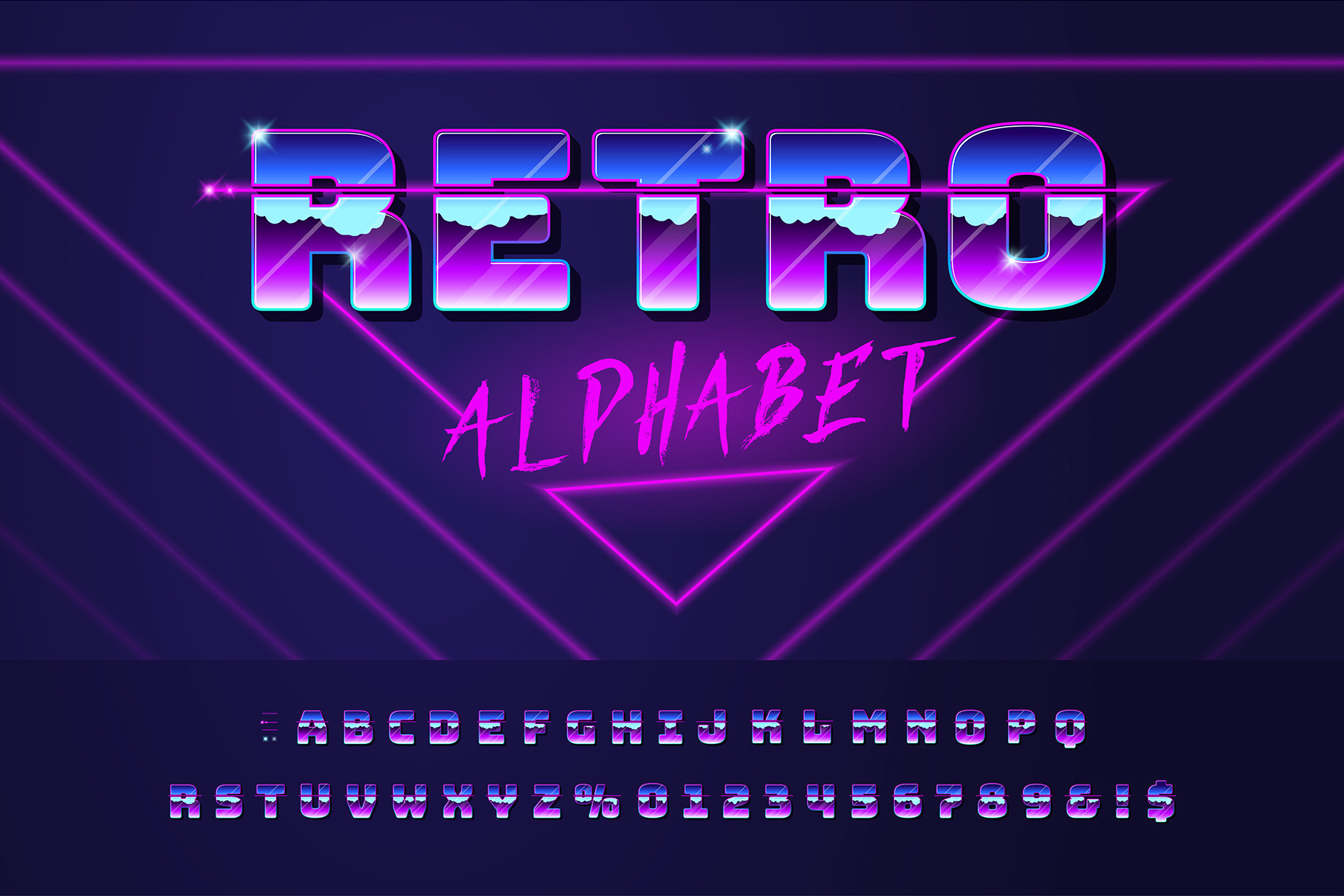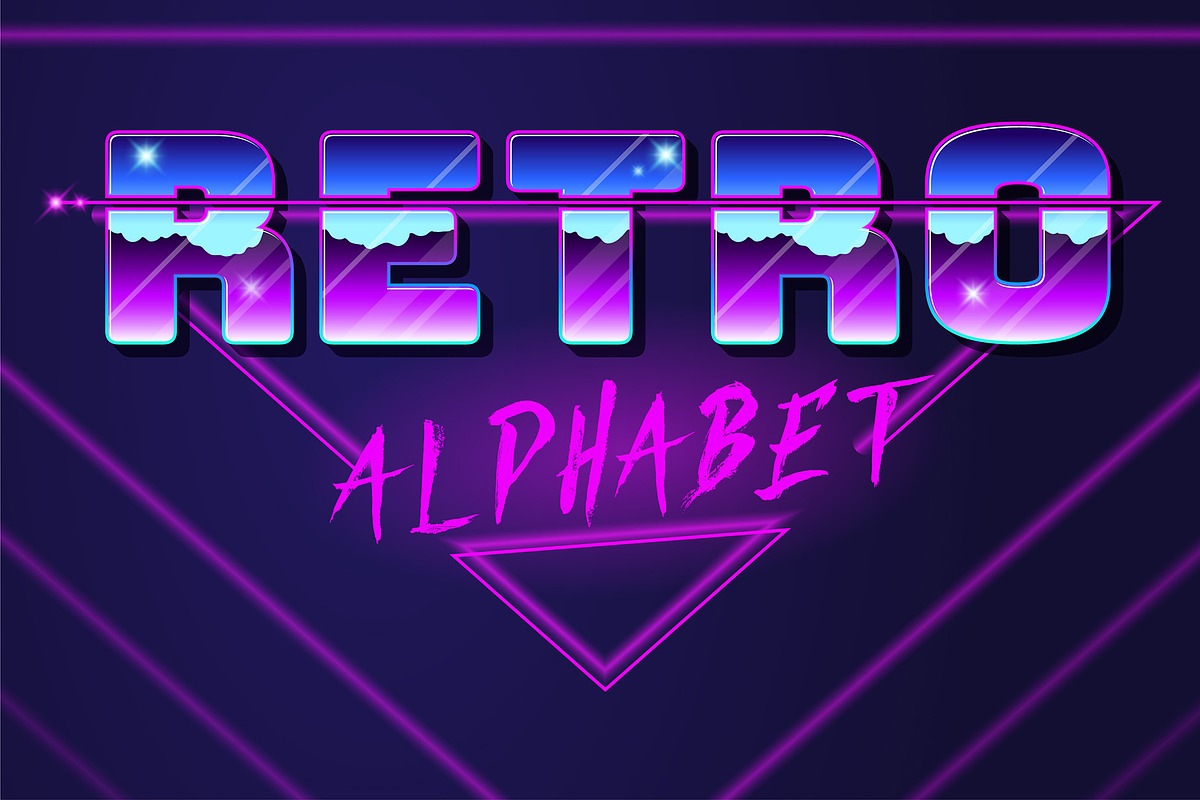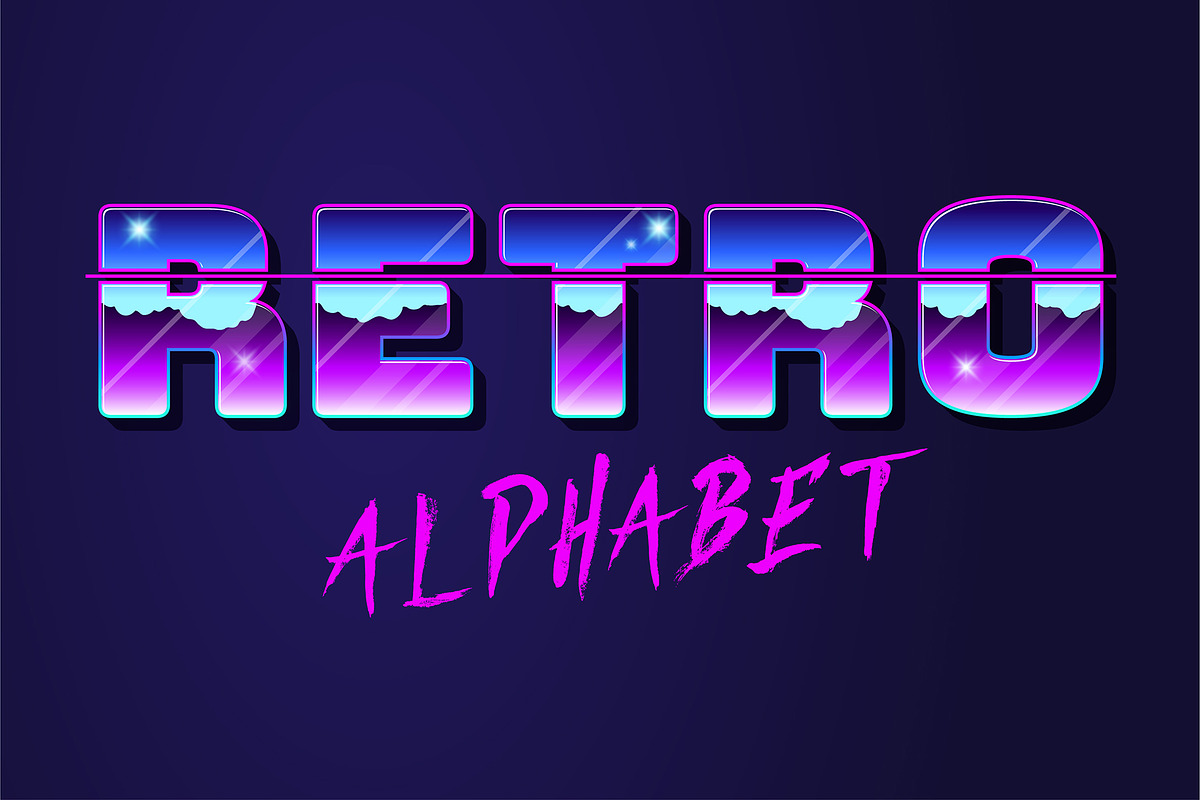
Retro Futuristic Chrome Font
Retro Futuristic Font in 1980s Retrowave and Synthwave Style with Chrome Effect, Bright Vector Alphabet - EPS (Not a Font!)
Uppercase letters A - Z (italics and normal)
Numbers 0 - 9 (italics and normal)
Clean, modern, and unique alphabet design